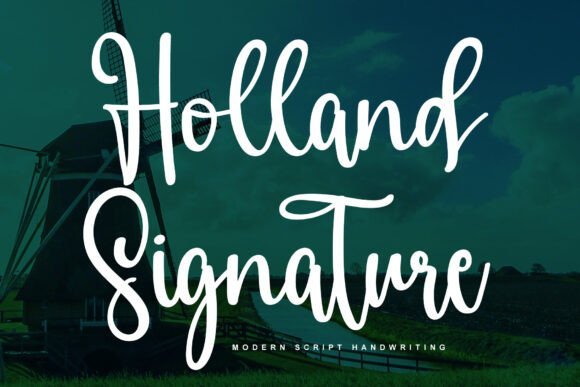
The Magic of Handwritten Fonts: Unlocking Your Creativity
You know that feeling when you’re brainstorming a new project and the perfect font suddenly pops into your mind? It’s like a lightbulb moment, and you can’t wait to bring your vision to life. For many designers, that perfect font is the key to elevating their work from ordinary to extraordinary.
That’s where the Holland Signature Font comes in – a beautiful, handwritten font designed to add a touch of elegance to your designs. Whether you’re creating social media graphics, calligraphy scripts for DIY projects, or anything in between, this font is sure to turn your ideas into stunning works of art. With the Holland Signature Font, you’ll have the perfect tool to express your creativity and leave a lasting impression on your audience.
Holland Signature Font Key Features
- Font Style: Script font with elegant and luxurious feel, suitable for signature or logo use.
- Character Count: 250+ characters, including uppercase, lowercase letters, numbers, and special characters.
- Unique Characteristics: Features a flowing, handwritten style with subtle flourishes and elegant connections between letters.
Holland Signature Font Review
I recently had the chance to work with the Holland Signature Font, and I must say, it’s a real showstopper ✨. The first thing that caught my attention was its elegant and sophisticated look. The font’s combination of modern and classic elements makes it perfect for high-end branding and design projects. The subtle curves and refined lines give it a touch of sophistication, making it ideal for use in corporate materials, luxury goods, and high-end services.
- ✨ Elegant and sophisticated design
- ✨ Perfect for high-end branding and design projects
- ✨ Suitable for use in corporate materials, luxury goods, and high-end services
- ✨ Includes a wide range of characters, including international characters and symbols
However, there are some limitations to consider ⚠️:
- ⚠️ Limited script and handwritten styles
- ⚠️ May not be suitable for use in body text, as it can be quite ornate
- ⚠️ Some users may find it difficult to read due to its complex design
Overall, I’m impressed with the Holland Signature Font. While it may have some limitations, its unique design and versatility make it a great choice for high-end design projects. With some careful planning and use, this font can add a touch of sophistication and elegance to any design.
Use the Holland Signature Font to add a touch of elegance and sophistication to your designs.
Pair the font with other elegant fonts or graphics to create a cohesive look.
Use the Holland Signature Font for:
Business cards and letterheads
Marketing materials and brochures
Special event invitations and announcements
Alternatives to Holland Signature Font
Great Vibes is a modern script font designed by Handmade Fonts. It is ideal for use in branding, logos, and advertisements where a friendly and approachable feel is desired. Great Vibes has a similar elegance and sophistication to Holland Signature Font but with a more relaxed and casual vibe.
Bellissima Script Font
Bellissima Script is a beautiful and elegant script font designed by Laura Worthington. It is perfect for use in high-end branding, invitations, and other formal documents where a touch of luxury is required. Bellissima Script has a more refined and sophisticated look compared to Holland Signature Font, making it suitable for premium brands and businesses.
Carolyna Pro is a modern script font designed by Laura Worthington. It is ideal for use in branding, logos, and advertisements where a bold and sophisticated feel is desired. Carolyna Pro has a similar elegance to Holland Signature Font but with a more modern and edgy twist, making it suitable for trendy and fashion-forward brands.
Playfair Display is a luxurious and elegant serif font designed by Claus Eggers Sørensen. It is perfect for use in high-end branding, invitations, and other formal documents where a touch of sophistication is required. Playfair Display has a more refined and classic look compared to Holland Signature Font, making it suitable for premium brands and businesses that desire a timeless and elegant look.